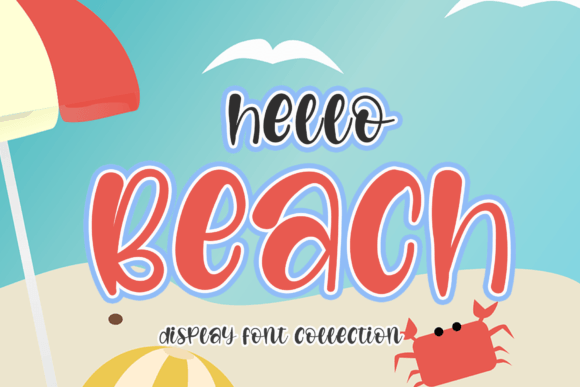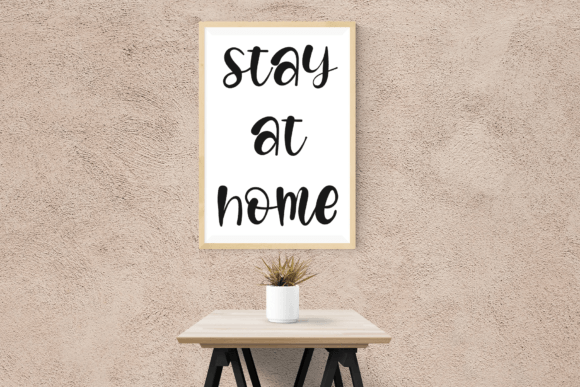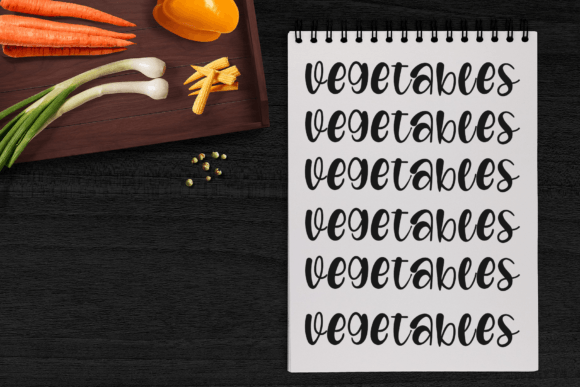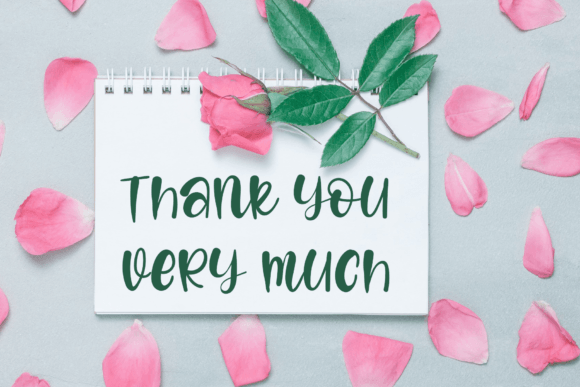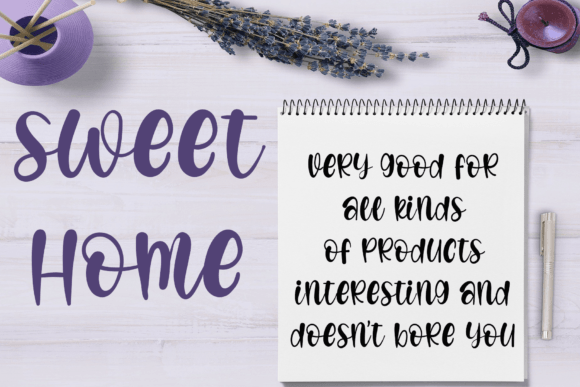
Hello Beach Font
About Hello Beach Font
“Hello Beach” is a font that embodies the essence of cool, simplicity, and playfulness. Its handwritten style exudes a laid-back vibe, making it a versatile choice that can enhance a wide variety of designs. Whether you’re working on branding, posters, social media graphics, invitations, or any other creative project, “Hello Beach” has the ability to elevate your designs and infuse them with a lively and vibrant energy.
The font’s simplicity is one of its key strengths. Its clean and uncluttered appearance allows it to blend seamlessly with different design elements, making it adaptable to various aesthetics and themes. This versatility ensures that “Hello Beach” can be incorporated into diverse projects, enhancing their visual appeal and adding a touch of character.
“Hello Beach” is not just a typeface; it’s a creative tool that brings designs to life. Its playful and handwritten nature adds a personal touch, making the text feel warm and inviting. This makes it an excellent choice for designs that aim to establish a friendly and approachable atmosphere, such as greeting cards, invitations, and social media posts.
In branding, “Hello Beach” can create a memorable and distinctive visual identity. Its cool and playful vibe resonates well with modern audiences, making it suitable for businesses targeting younger demographics. Whether used in logos, packaging, or promotional materials, the font adds a fresh and youthful energy, making the brand more relatable and appealing to customers.
For posters and promotional graphics, “Hello Beach” serves as an attention-grabbing headline font. Its playful yet legible characters make it perfect for conveying messages in a fun and engaging manner. Whether you’re advertising events, sales, or special offers, this font adds a dynamic element that captures viewers’ attention and encourages them to explore further.
In social media graphics, “Hello Beach” enhances the visual aesthetics of posts and captions. Its handwritten style adds a touch of authenticity, making the content feel more genuine and relatable. Whether you’re sharing quotes, travel experiences, or lifestyle content, the font elevates the overall look of your social media presence, making it more appealing to followers.
In summary, “Hello Beach” is a font that brings a sense of playfulness and creativity to any design it graces. Its cool and simple design, combined with its playful handwritten style, makes it a favorite among designers looking to add a touch of charm to their projects. So go ahead, add “Hello Beach” to your creative ideas, and watch how it transforms them into vibrant and lively creations that captivate audiences and leave a lasting impression.